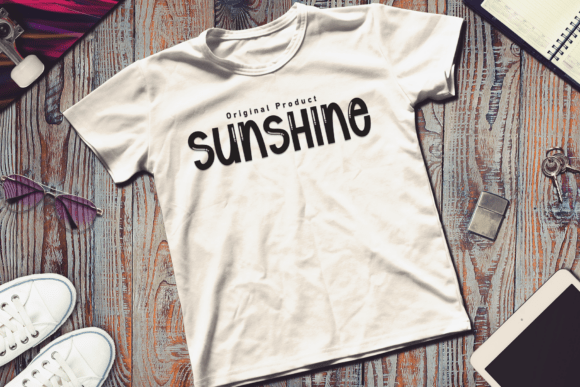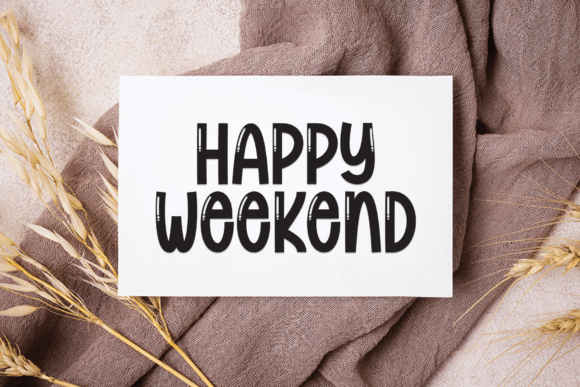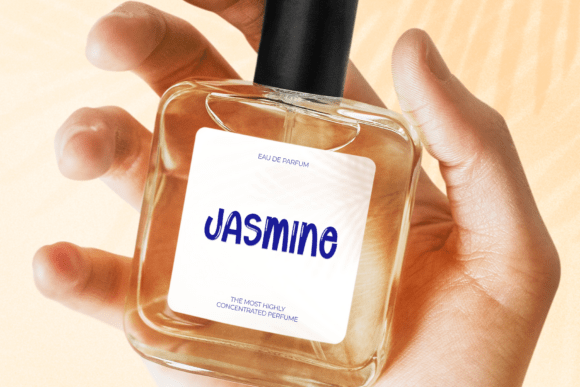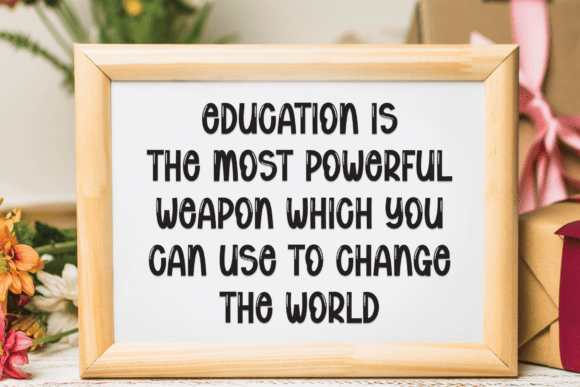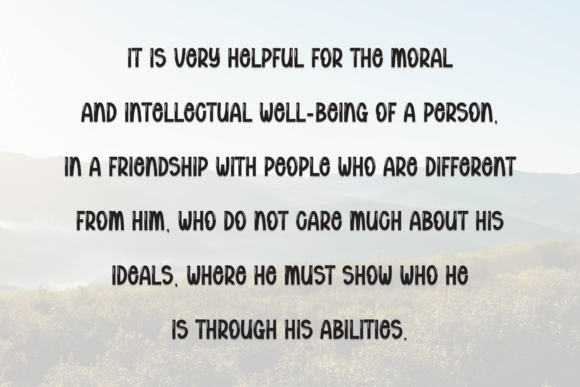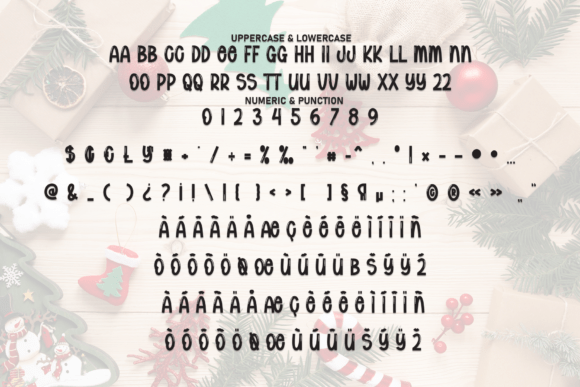
Unlock the Magic of the Season with Our Christmas Font
Do you remember the thrill of unwrapping your first Christmas present as a child? The excitement of the season, the joy of sharing it with loved ones, and the special memories that come with it? As a designer, you have the power to evoke that same feeling in your audience through the perfect font. Introducing our Christmas Font, a delightful, handwritten display font designed to spark your creativity and add a touch of magic to all your design ventures.
Whether you’re crafting heartfelt wedding invitations, endearing greeting cards, or simply want to infuse your designs with a dash of joy, our Christmas Font is the perfect tool for the job. Its charming appeal will captivate your viewers and leave a lasting impression. With its unique blend of fun, cuteness, and design excellence, this font is a must-have for any designer looking to elevate their creations and make the holiday season a little brighter.
Key Features of Christmas Font
- Unique Characteristics: The font features festive and playful ornaments, swashes, and flourishes, making it perfect for holiday-themed designs, invitations, and greeting cards.
- Font Pairing: The font is designed to pair well with other festive fonts and serif fonts, allowing designers to create unique and cohesive holiday-themed designs.
Christmas Font Review
I recently had the chance to work with the “Christmas Font” and I must say it’s a decent addition to any holiday-themed project. ✨ The font’s playful and festive design makes it perfect for titles and headings, adding a touch of cheer to any layout.
One of the things I like about the “Christmas Font” is its versatility. It’s available in a range of weights and styles, making it easy to mix and match with other fonts to create a cohesive look. ✨ The font also includes a variety of ornaments and icons, which can be used to add some extra visual interest to your design.
However, I do have a few concerns about the “Christmas Font”. ⚠️ The font’s design can be a bit too kitschy for some tastes, and it may not be the best choice for more sophisticated or modern designs. Additionally, the font’s ornaments and icons can be a bit too distracting, and may take away from the overall message of your design.
Overall, I would say that the “Christmas Font” is a solid choice for holiday-themed projects, but it may not be the best fit for every design.
- Works well for playful and festive designs
- Available in a range of weights and styles
- Includes ornaments and icons for added visual interest
- May be too kitschy for more sophisticated designs
- Ornaments and icons may be distracting
Getting the Most Out of the Christmas Font
To get the most out of the Christmas font, use it in combination with festive graphics and colors to create a cohesive holiday design.
Experiment with different font sizes, styles, and colors to add depth and interest to your design.
The Christmas font is commonly used in holiday-themed designs, such as:
Invitations and greeting cards
Party decorations and signs
Gift tags and wrapping paper
Seasonal marketing materials and advertising